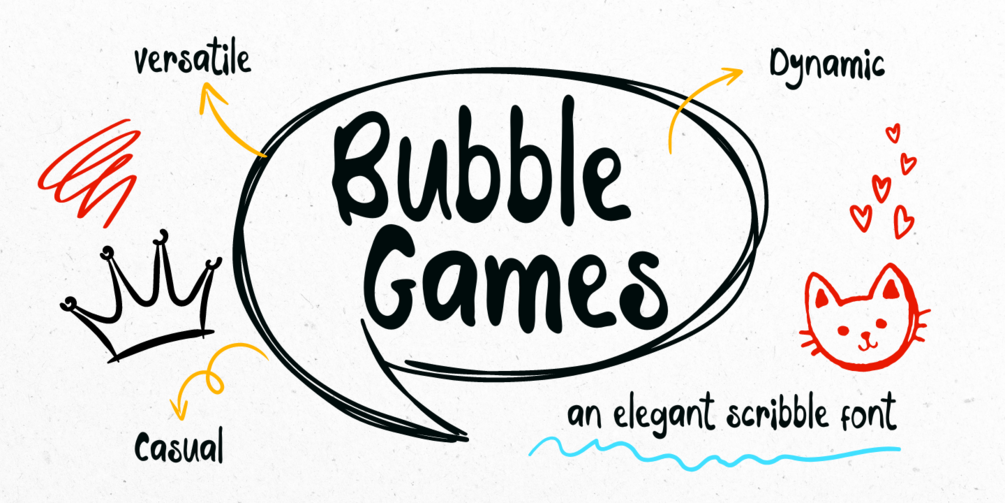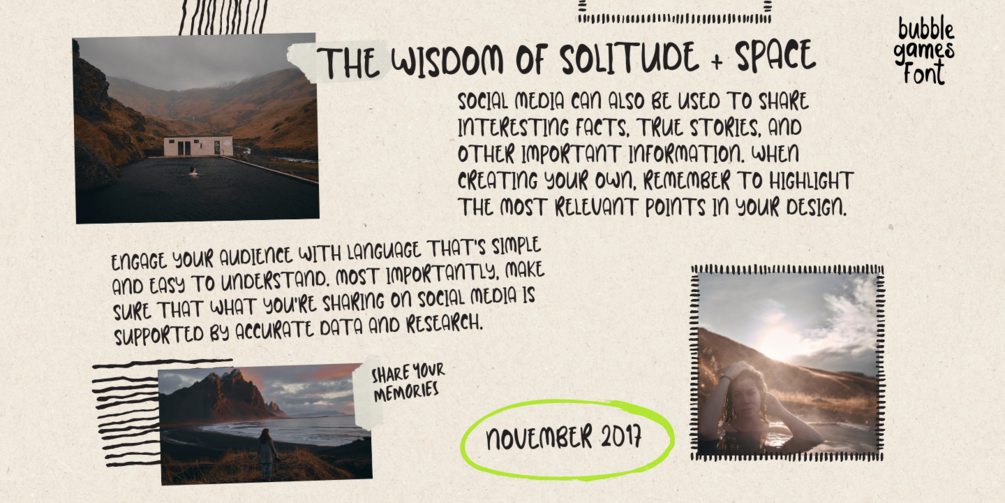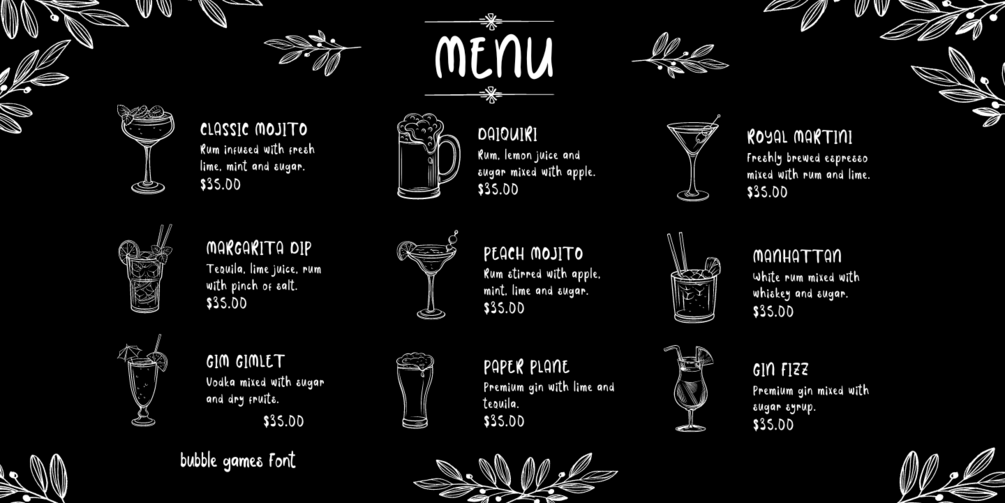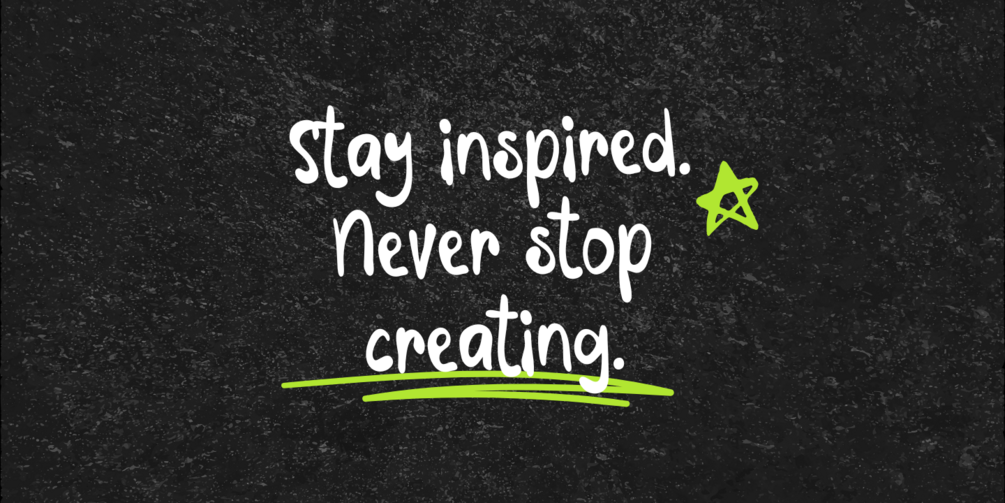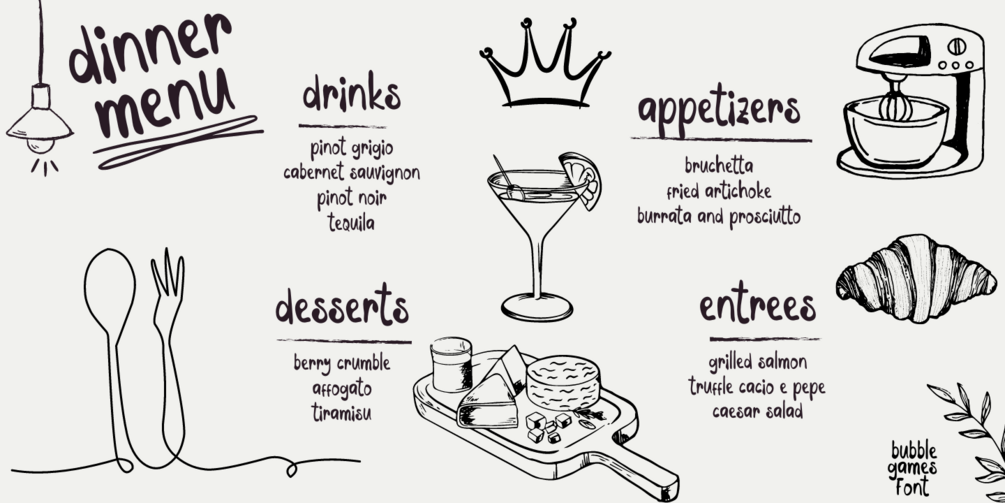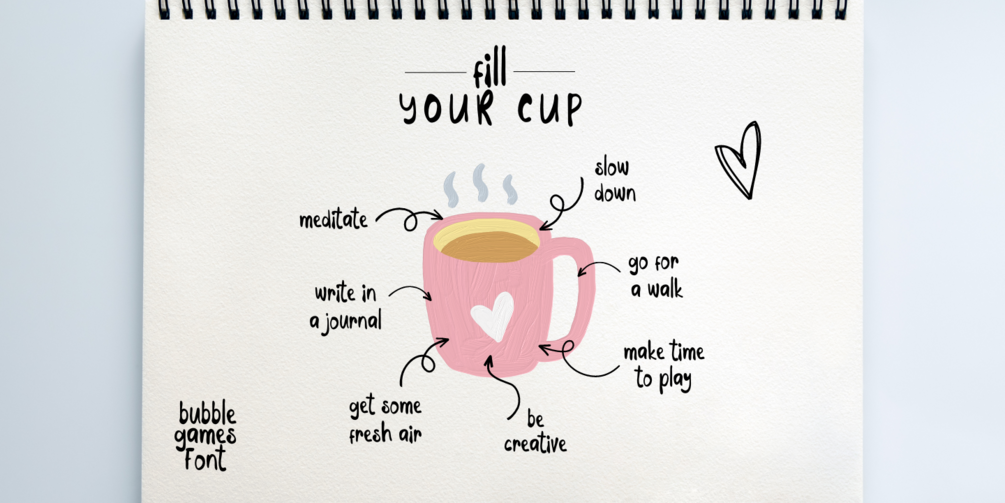
Bubble Games - scribble font
Bubble Games Font is a jolly and charming display font. Whimsical and a bit quirky, this font will brighten up each of your designs. Add it confidently to your projects, and you will love the results